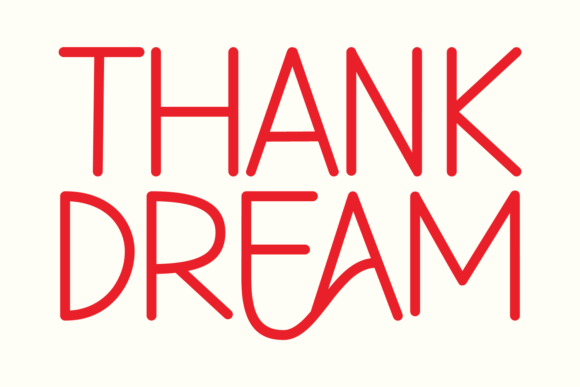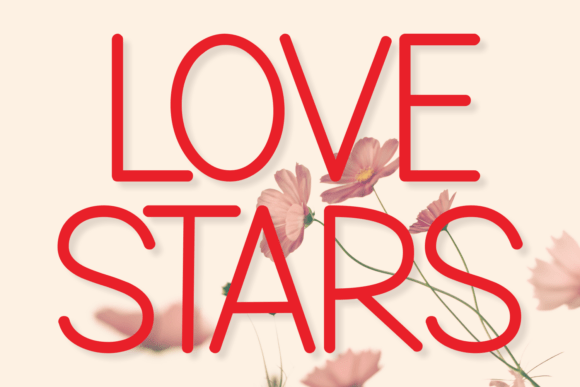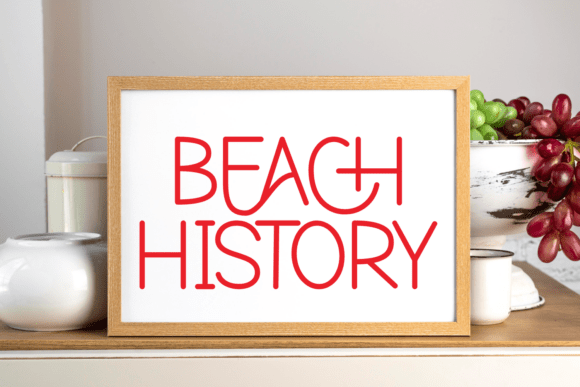
Bird Beach Font – Free Download
Introduction to Bird Beach Font
Introducing Bird Beach Fonts, your go-to resource for whimsical and fun typographies, penned in an artisan’s touch.
Get swept away in its playful charm, embodying the spirit of flirty unicorns, delightful treats, and romantic Valentines musings It’s a versatile find for quirky quotes, fittingly designed for girly silhouettes and cute springtime themes.